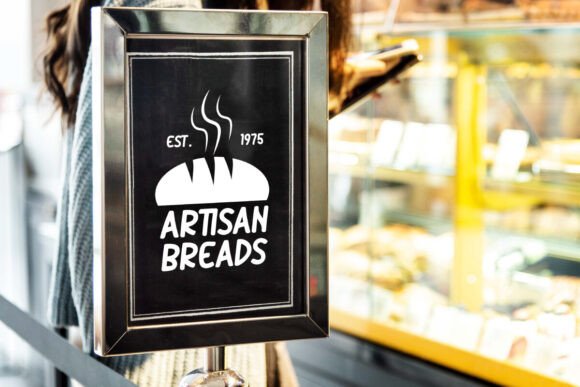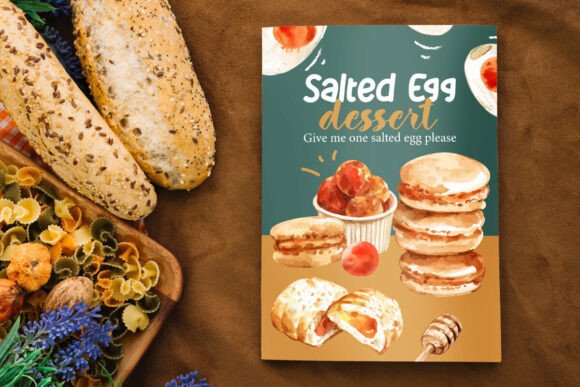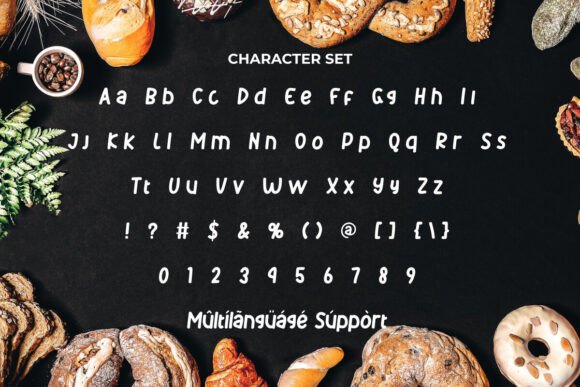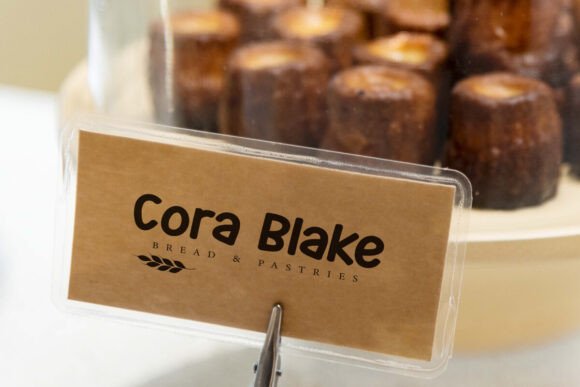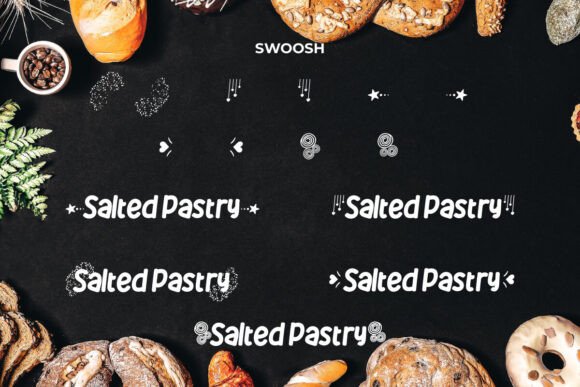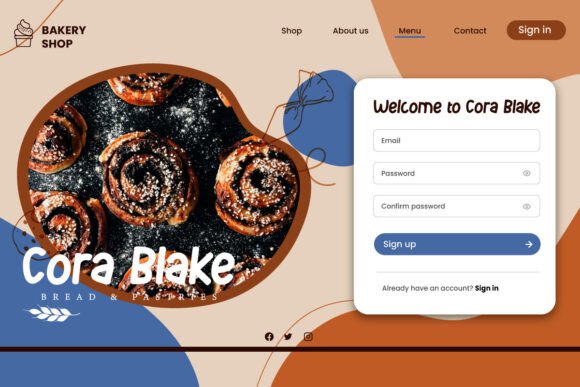
Introduction to Salted Pastry Font
Have you ever stumbled upon the perfect font while working on a creative project, only to realize it’s the perfect match for your entire brand image? That’s exactly what happens when you discover the delightful Salted Pastry Font. This charming font is designed to bring a touch of whimsy and elegance to your designs, making it an ideal choice for a wide range of creative projects.
As a designer, you know how important it is to have a versatile design resource that can elevate your work and make it stand out from the crowd. The Salted Pastry Font is just that – a high-quality font that can be used in various contexts, from branding and marketing materials to digital designs and print projects.
Key Features of Salted Pastry Font
- Designed with a unique, handcrafted aesthetic, setting it apart from more generic fonts.
Honest Review: Salted Pastry Font
I recently stumbled upon the Salted Pastry Font while searching for the perfect design resource for my upcoming creative project. As a designer, I’m always on the lookout for high-quality fonts that can elevate my work. I’m happy to say that the Salted Pastry Font has exceeded my expectations.
- ✨ Unique and elegant design that adds a touch of sophistication to any project
- ✨ Highly legible, making it perfect for both body text and headings
However, I do have a few concerns:
- ⚠️ Limited font weights and styles, which may limit its versatility
Overall, I’m impressed with the Salted Pastry Font. Its unique design and high quality make it a great addition to any design project. While it has its limitations, I believe it’s a great resource for designers who are looking for a stylish and elegant font. I’d definitely recommend it for my next creative project.
How to Use Salted Pastry Font
Tips for Getting the Most Out of Salted Pastry Font
To maximize the use of the Salted Pastry Font, experiment with different font sizes, colors, and combinations. This font is highly versatile and can be used in a variety of creative projects, from wedding invitations to business cards.
Common Use Cases for Salted Pastry Font
The Salted Pastry Font is commonly used in wedding designs, baby shower invitations, and other special occasion graphics. Its elegant and sophisticated design makes it perfect for creating high-end and professional-looking designs.